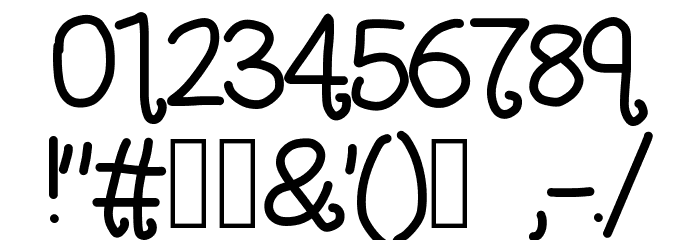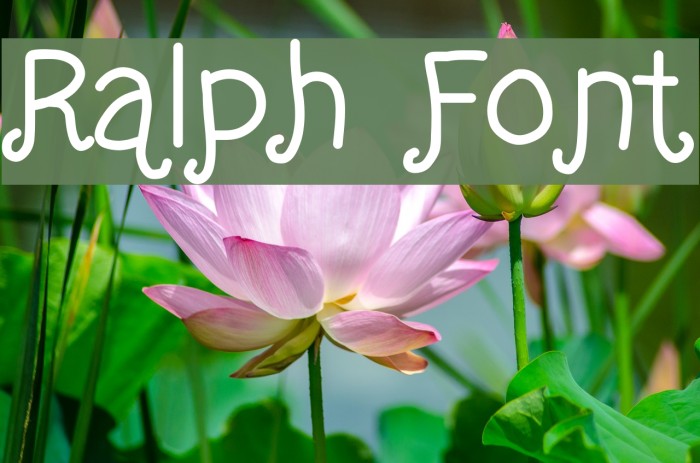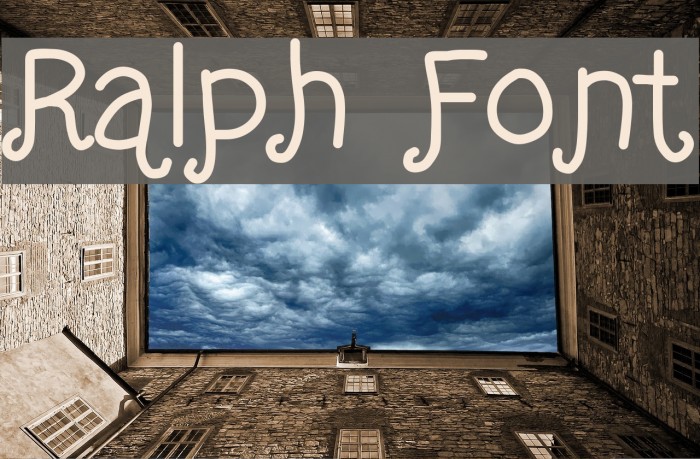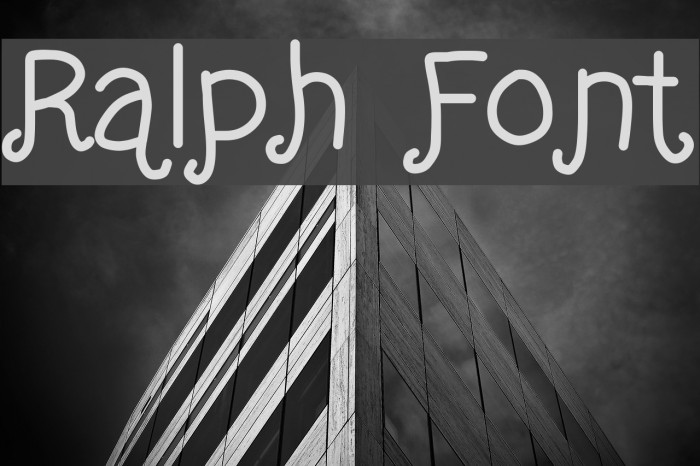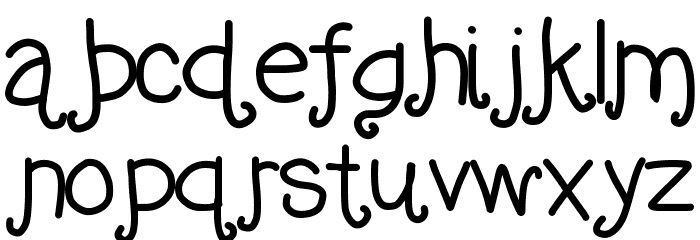
Ralph Font
This playful and whimsical font features a unique design with curly serifs and rounded edges, giving it a friendly and approachable appearance. The characters are evenly spaced with a moderate width, making them easy to read while maintaining a distinctive style. The font includes both uppercase and lowercase letters, numerals, and a variety of special characters. Its decorative nature makes it ideal for creative projects that require a touch of fun and personality.
A playful, curly serif font with a whimsical and friendly style.
• Proposed Projects: Perfect for children's books, greeting cards, playful branding, and creative posters.
• Category: Decorative/Display
• Overall Style: Playful, Whimsical
• Use Case: Headlines, Logos, Creative projects